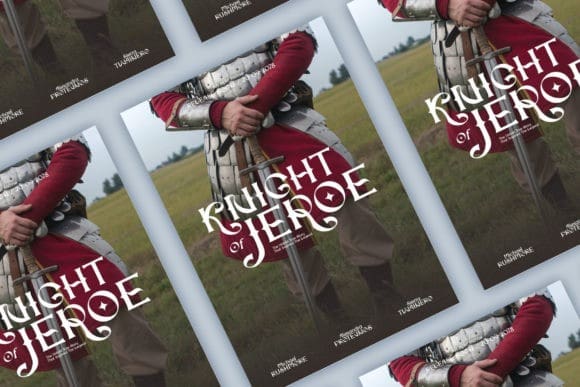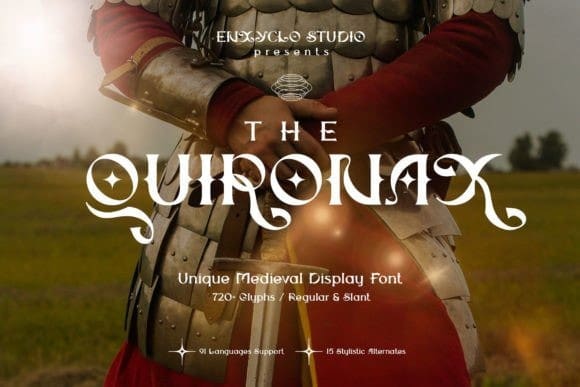
The Quironax Font
The Quironax Font is unique medieval display font with bold and complex personality. It was purposely crafted to be used in large point sizes, although it doesn’t lose its magic in small point sizes. It is perfect for headline, billboard, magazines, website, titles, poster, branding, logos, social media posts, advertisements, product packaging, product designs, label, photography, watermark, invitation, stationery, etc.
The Quironax Font is simple, easy to read, and works equally as well in header and body text. With this beautiful font, absolutely you can make your project stand out from the rest. See the previews above to get some inspiration on how to use them.